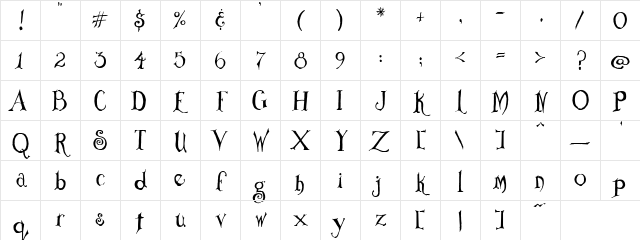
PC Anderson Regular
Design Context for PC Anderson
PC Anderson is a composed and adaptable typeface that performs quietly and consistently across a wide range of design contexts.